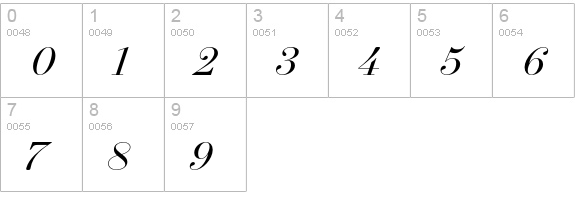
NewParis Headline Italic is a distinctive, italic variant in the NewParis typeface family \xE2\x80\x94 well suited to design and typography projects.
Introducing NewParis Headline Italic font, a sleek and sophisticated typeface designed for eye-catching headlines and titles. Its elegant italic style exudes a sense of modernity and sophistication, making it perfect for adding a touch of class to any design project. The NewParis Headline Italic font boasts clean lines and sharp edges, ensuring maximum readability and visual impact. And the best part? This stunning font is available for free download at FontsMarket.com! That's right, you can elevate your designs with this premium font without spending a dime. Don't miss out on the opportunity to enhance your projects with the NewParis Headline Italic font – download it now and take your designs to the next level.